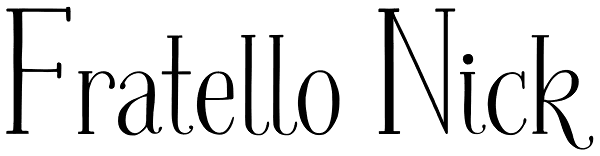
Fratello Nick
Fratello Nick is a hand-lettered text with 1160 glyphs to play with. It was inspired by my beautiful red-headed son Nick. ( Read the inspiration behind the font below.) There are 15 fonts in the family. Both the Regular and Pro come in a variety of...